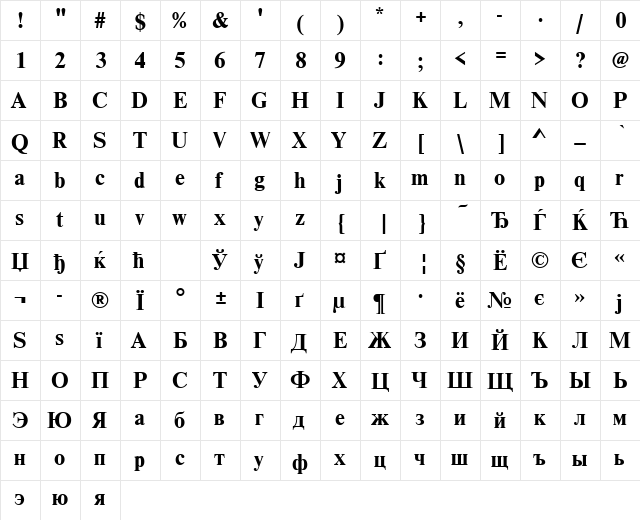
NimbusRomDCY Bold Font Preview
NimbusRomDCY Bold
NimbusRomDCY Bold Font Details
Design Context for NimbusRomDCY Typeface
NimbusRomDCY is a composed and adaptable typeface that performs quietly and consistently across a wide range of design contexts. The heavy weight commands attention and anchors typographic hierarchies.